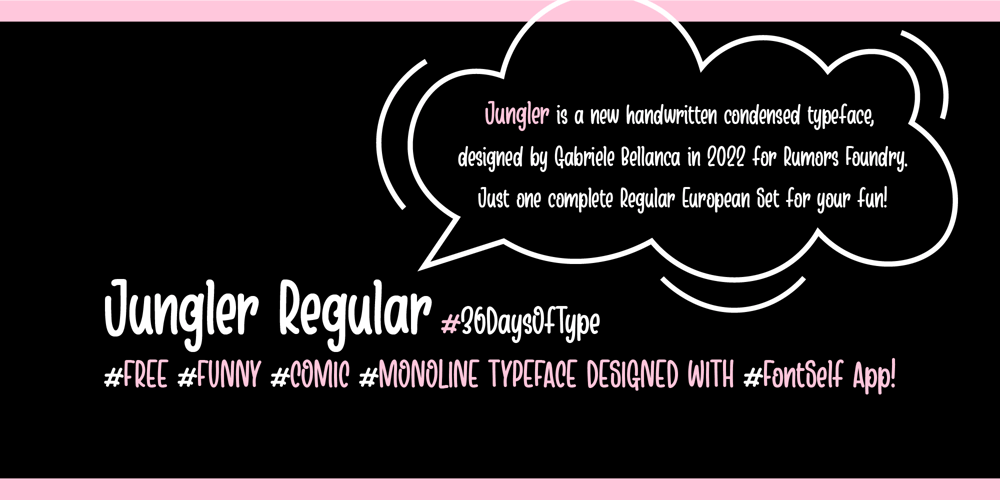
Jungler Font Family was designed by Gabriele Bellanca and published by Rumors Foundry. Jungler contains 1 styles and family package options. Jungler is a new handwritten consensed typeface, based on the lettering from comic magazines, designed by Gabriele Bellanca in early 2022 for Rumors Foundry. It was created with FontSelf App and the support of Glyphs App. Counts over 270 glyphs in one Regular weight.